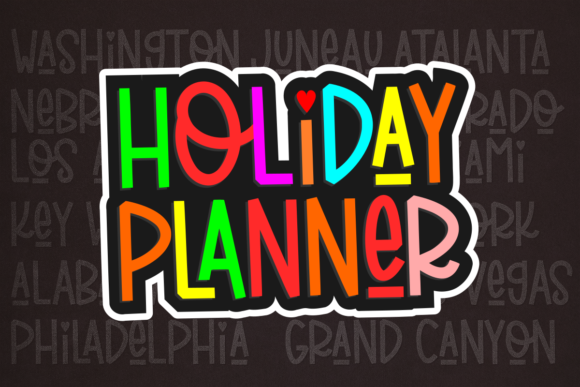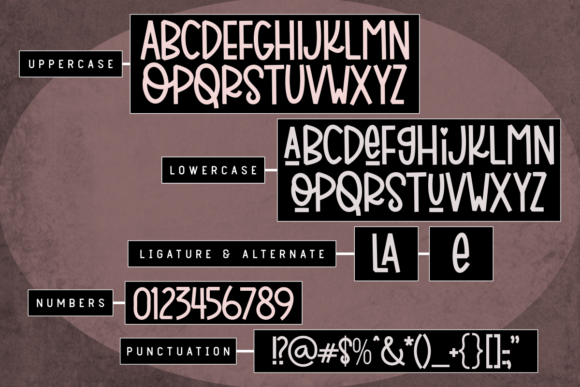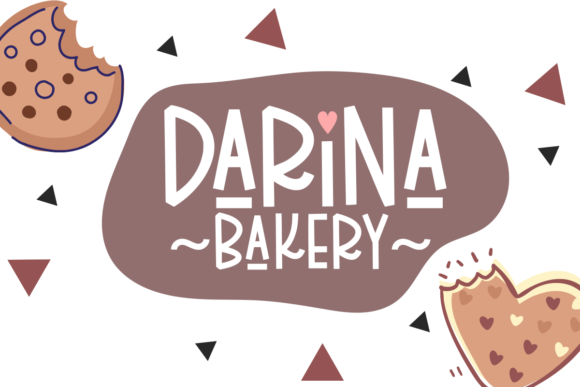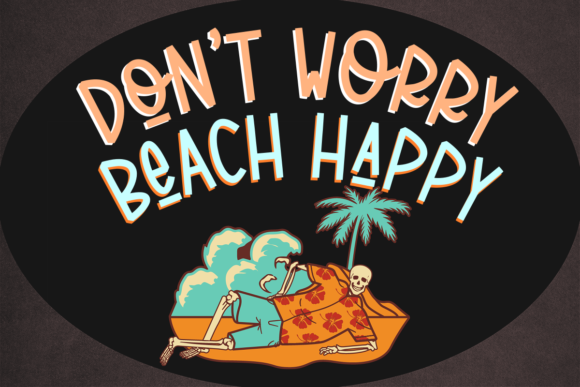
Holiday Planner Font
About the Holiday Planner Font
Elevate your designs with Holiday Planner Font, a font that combines sophistication with readability. Holiday Planner is an incredibly unique display font. Masterfully designed to become a true favorite, this font has the potential to bring each of your creative ideas to the highest level!
Holiday Planner’s strong, playful forms make it ideal for headlines, short taglines, and festive branding projects. It works exceptionally well on posters, invitations, and packaging where its unique character can shine. However, its decorative nature makes it unsuitable for body text or UI elements requiring high readability.
Its bold personality pairs well with clean sans-serif fonts like Open Sans or Lato for a balanced contrast, or a more playful script like Pacifico for a whimsical feel. For a sophisticated approach, consider pairing it with a classic serif like Garamond or Didot.
The font exudes a cheerful, celebratory energy, best suited for brands and projects related to holidays, events, or products emphasizing fun and festivity.
Holiday Planner Font Usage Examples
Holiday Planner Font Example